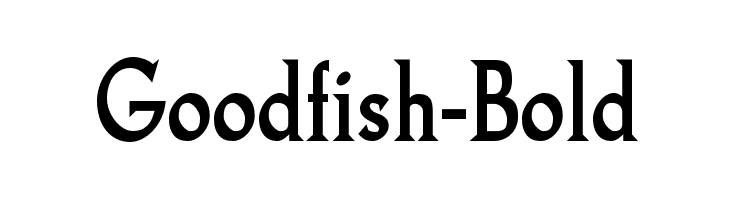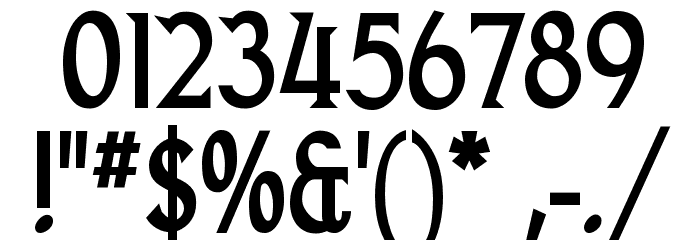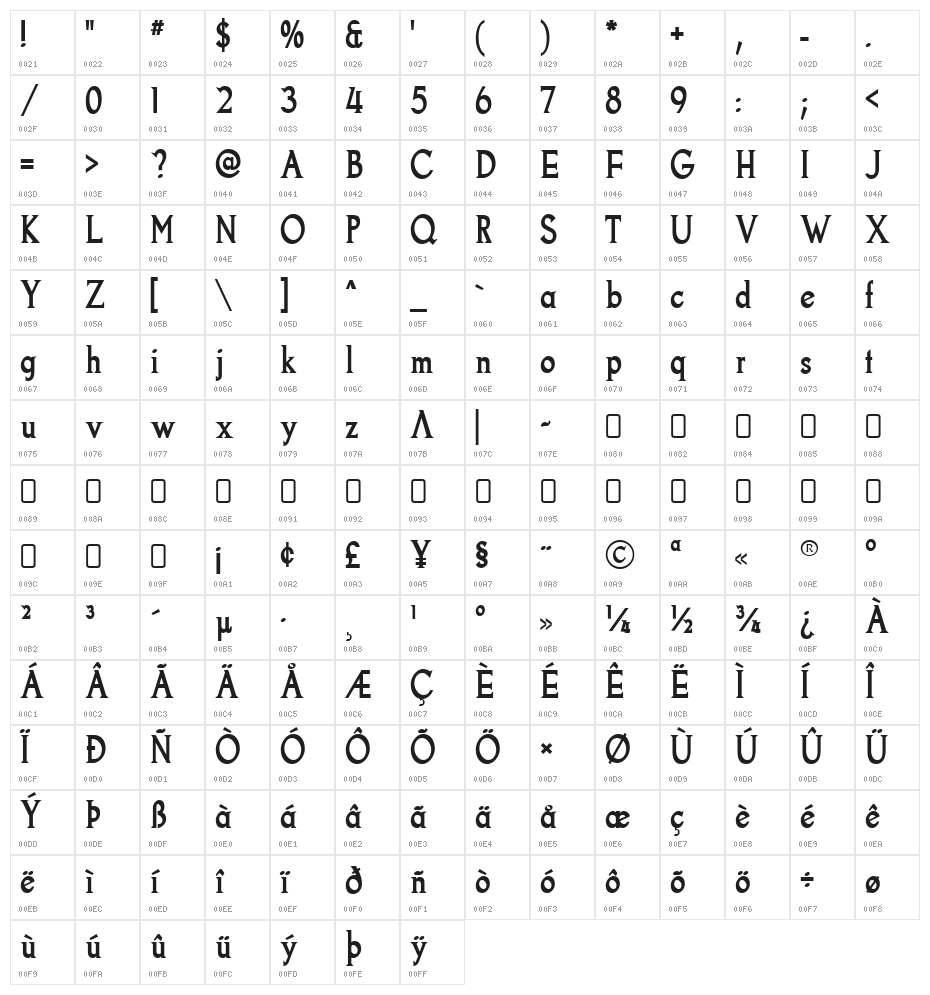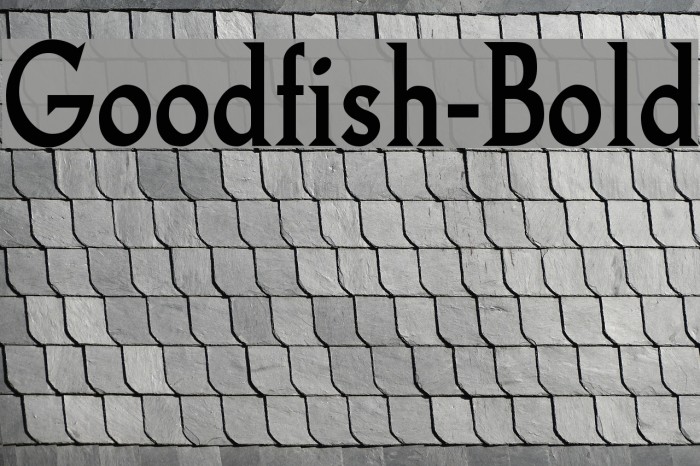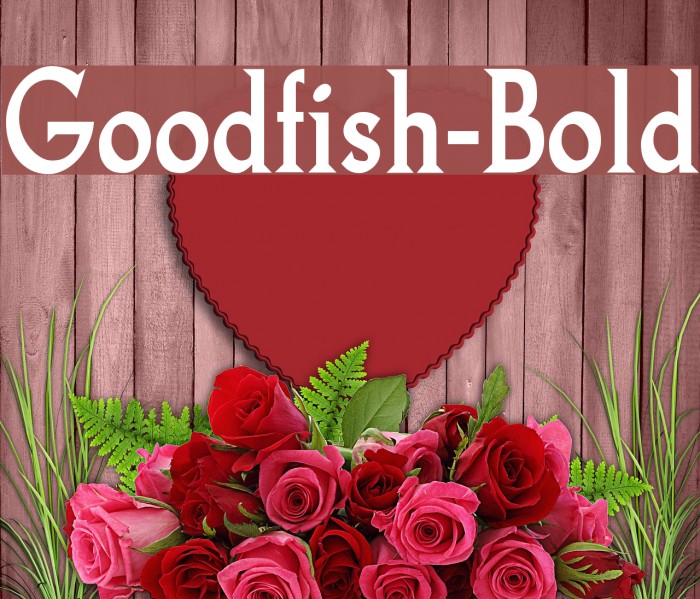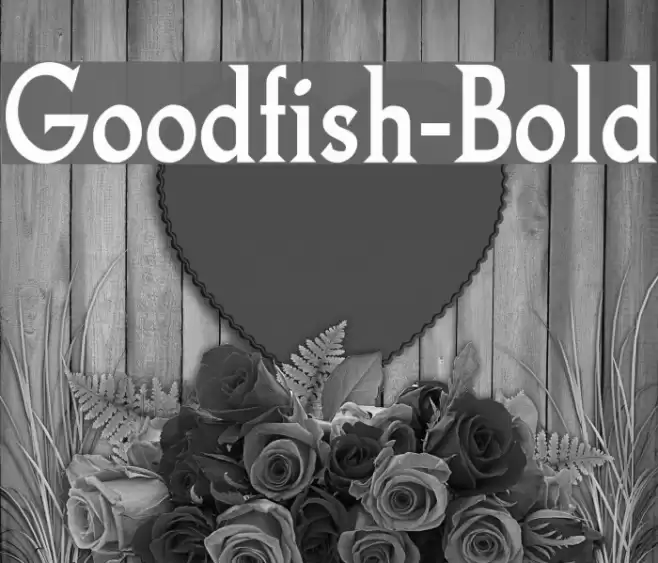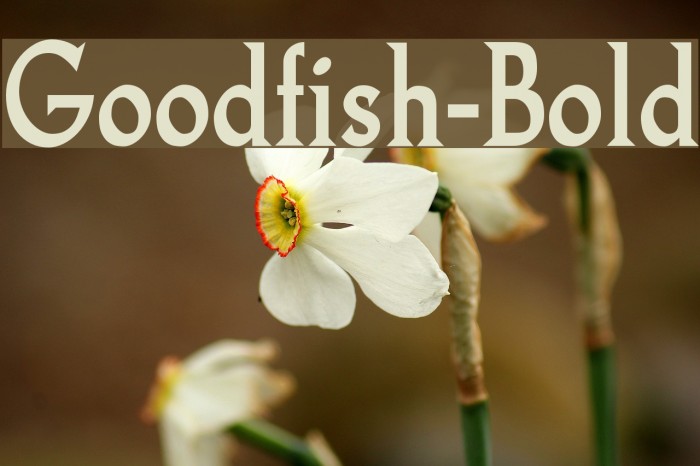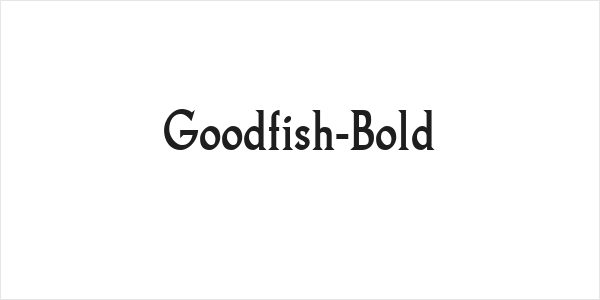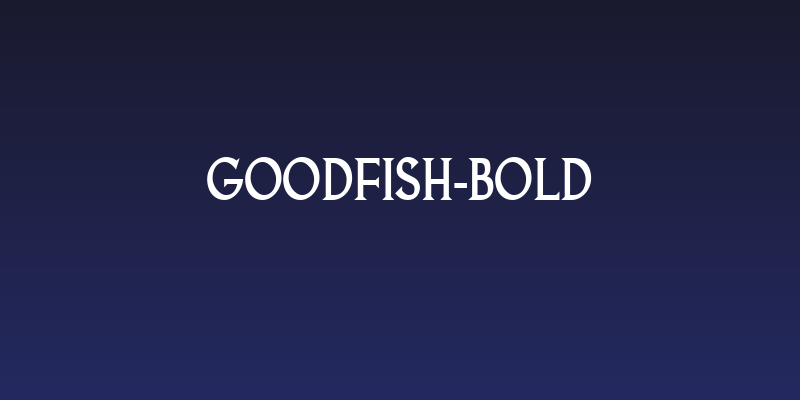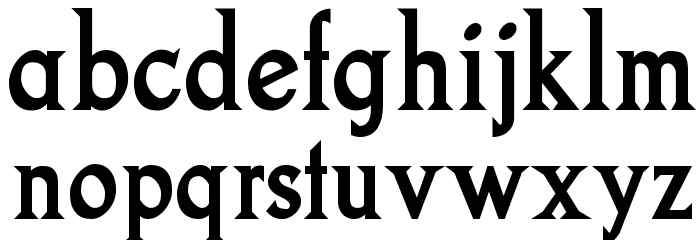
Goodfish-Bold Font
Goodfish-Bold Description
This font features a bold and commanding presence with its thick strokes and sharp serifs. The uppercase letters are tall and slightly condensed, giving a sense of authority and elegance. The lowercase letters maintain a consistent weight, ensuring readability while adding a touch of sophistication. Numbers are clear and distinct, with a uniform thickness that complements the overall design. Special characters are crafted with precision, maintaining the font's bold aesthetic. This typeface is ideal for making a strong visual impact.
| Proposed Projects | Ideal for branding, headlines, posters, and editorial design where a strong, authoritative look is desired. |